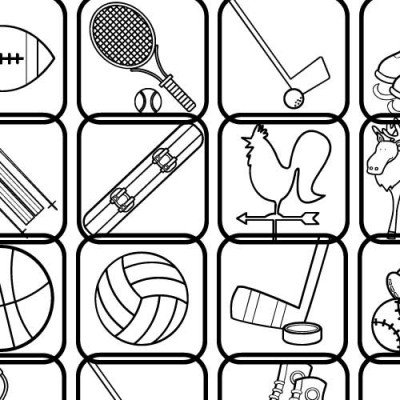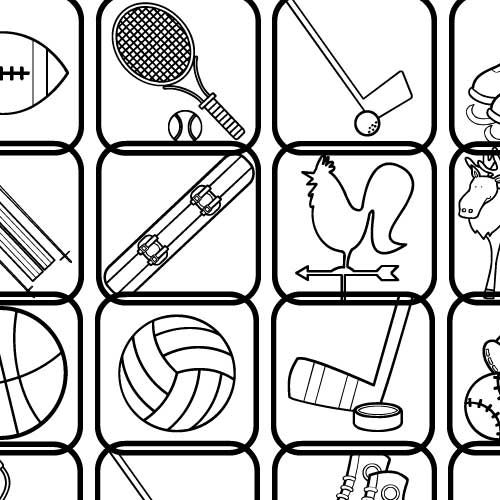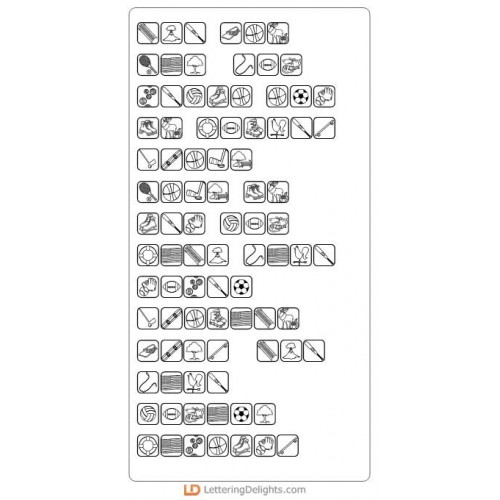
DB Scouts 3 - DB
There's such an array of skills that can be achieved in the Scouting Programs...so many, in fact, that it took four DoodleBats to display them! DB Scouting 1, 2, 3, and 4 provide great additional imagery to your newsletters, invitations, decorations and memory pages!